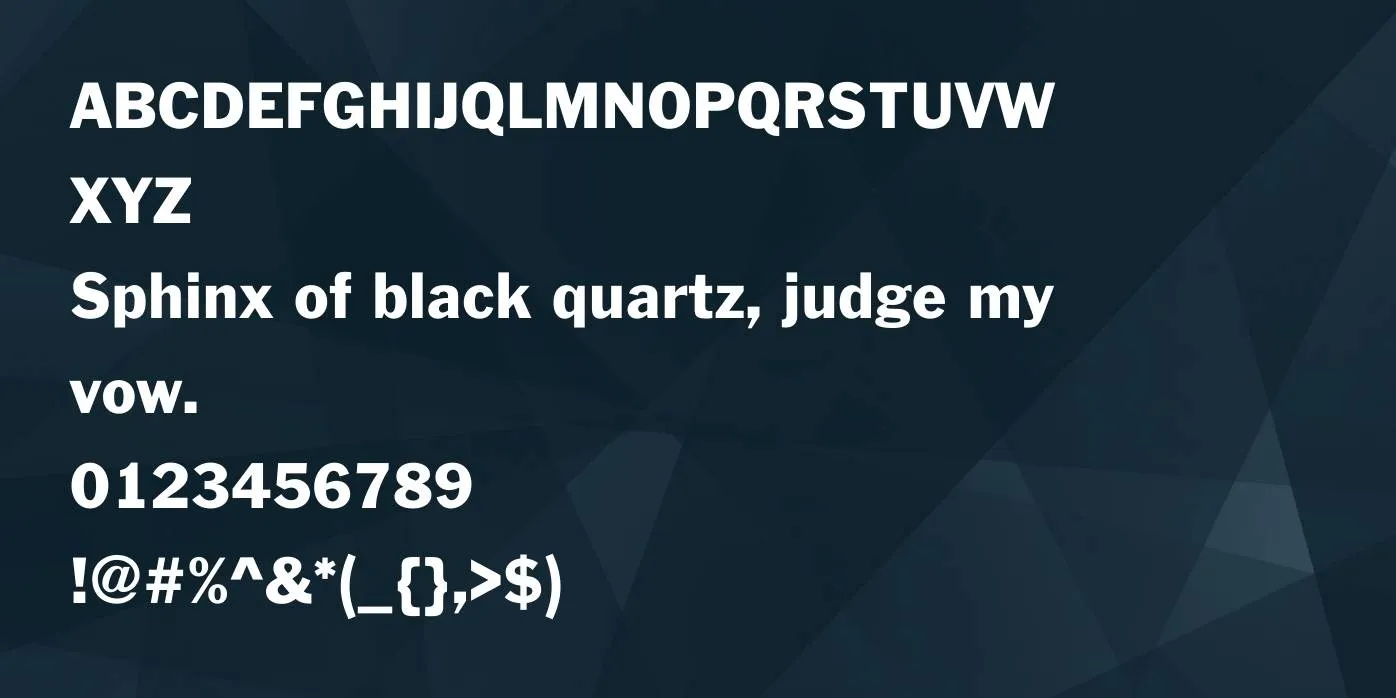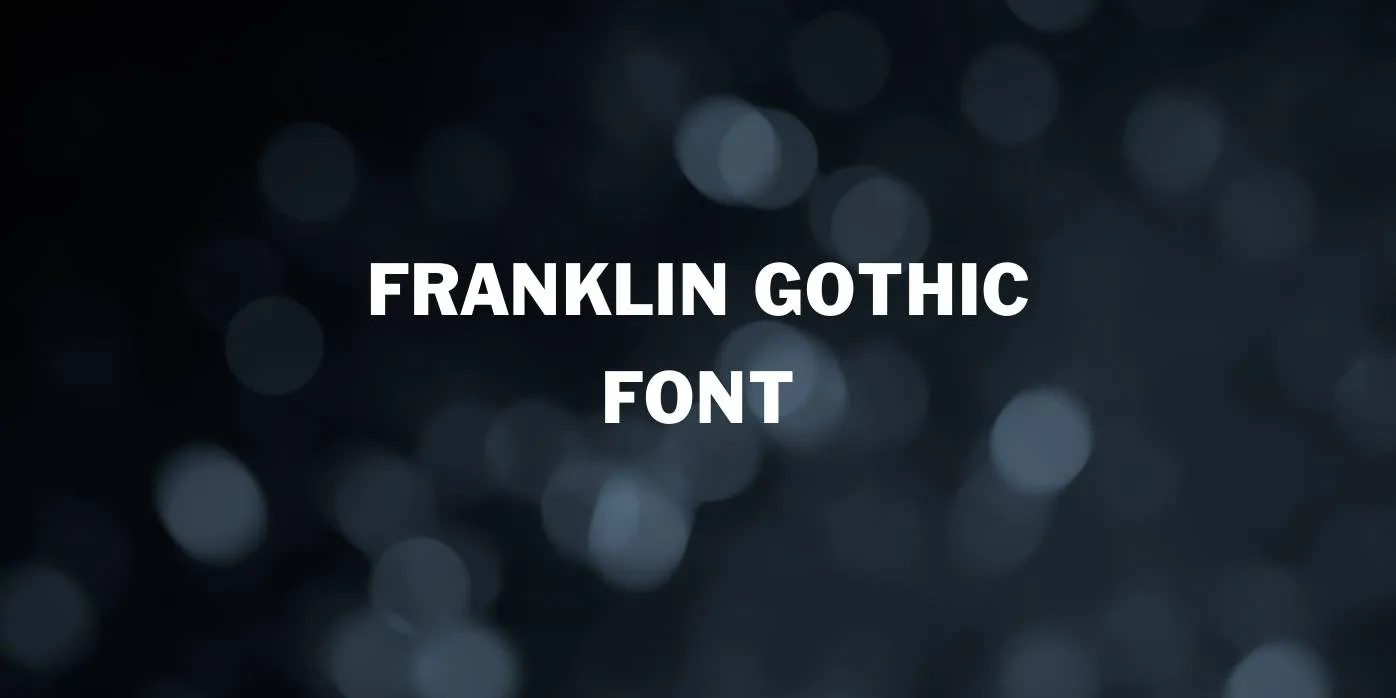
Franklin Gothic Font
Franklin Gothic font is the best typeface that falls in the of Gothic and Sans serif at a time. This typeface is designed by American Type Founders Collection. It has a TTF feature and free for personal use. The font family has many styles and weights that include Regular, Light, and Medium, and all the weights have Uppercase and Lowercase letters, Numbers and Numerals, and symbols, etc.